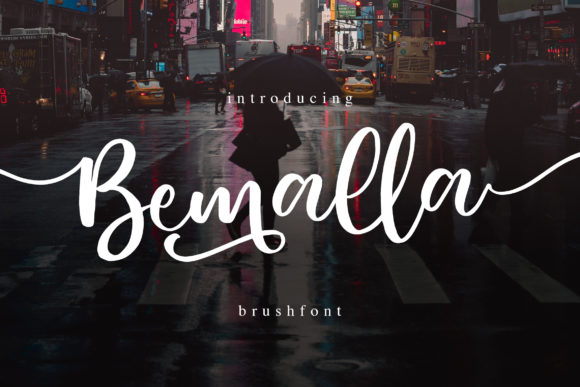
The Magic of Bemalla Font: A Designer’s Delight
Have you ever been in the middle of a design project, and suddenly, you just can’t seem to find the right font? I recall a particularly frustrating experience while working on a wedding invitation design. My client wanted a font that exuded romance and elegance, but everything I tried seemed to fall flat. That was until I stumbled upon the stunning Bemalla font. ✨
Bemalla is a natural brush script font that instantly captured my heart with its beautiful swashes and romantic feel. It’s perfect for designers, crafters, and creative hobbyists looking to add a touch of whimsy and sophistication to their projects.
An Honest Review of Bemalla Font
• ✨ Beautiful swashes and ligatures that add a touch of elegance to any design
• ✅ Romantic and whimsical feel that’s perfect for wedding designs, invitations, and more
• 🎨 Highly versatile and can be used for a variety of design projects, from digital to print
• 👍 Easy to read and understand, even in smaller font sizes
While Bemalla font is truly amazing, there are a few things to keep in mind: 🤔
• ⚠️ Some swashes and ligatures may not work well in smaller font sizes, so be sure to test them out
• ⚠️ Limited availability of certain glyphs and stylistic alternates, but this can be overcome with OpenType features
The Backstory of Bemalla Font
Bemalla font was designed with love and care by a talented type designer who’s passionate about creating beautiful, hand-crafted fonts. The designer’s inspiration for Bemalla font came from the world of traditional calligraphy and hand-lettering. With its natural, brush script feel, Bemalla font is perfect for designers looking to add a touch of elegance and whimsy to their projects.
Q: What is Bemalla font?
A: Bemalla font is a natural brush script font with a romantic feel and beautiful swashes.